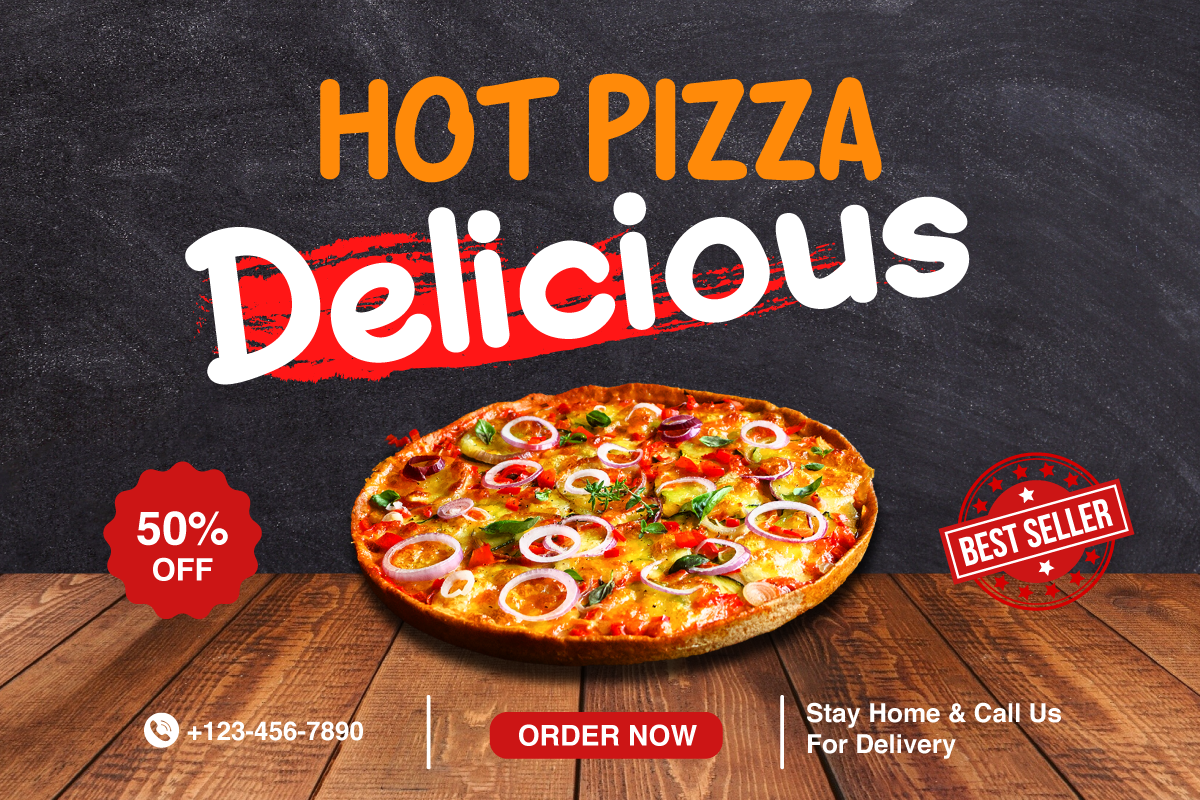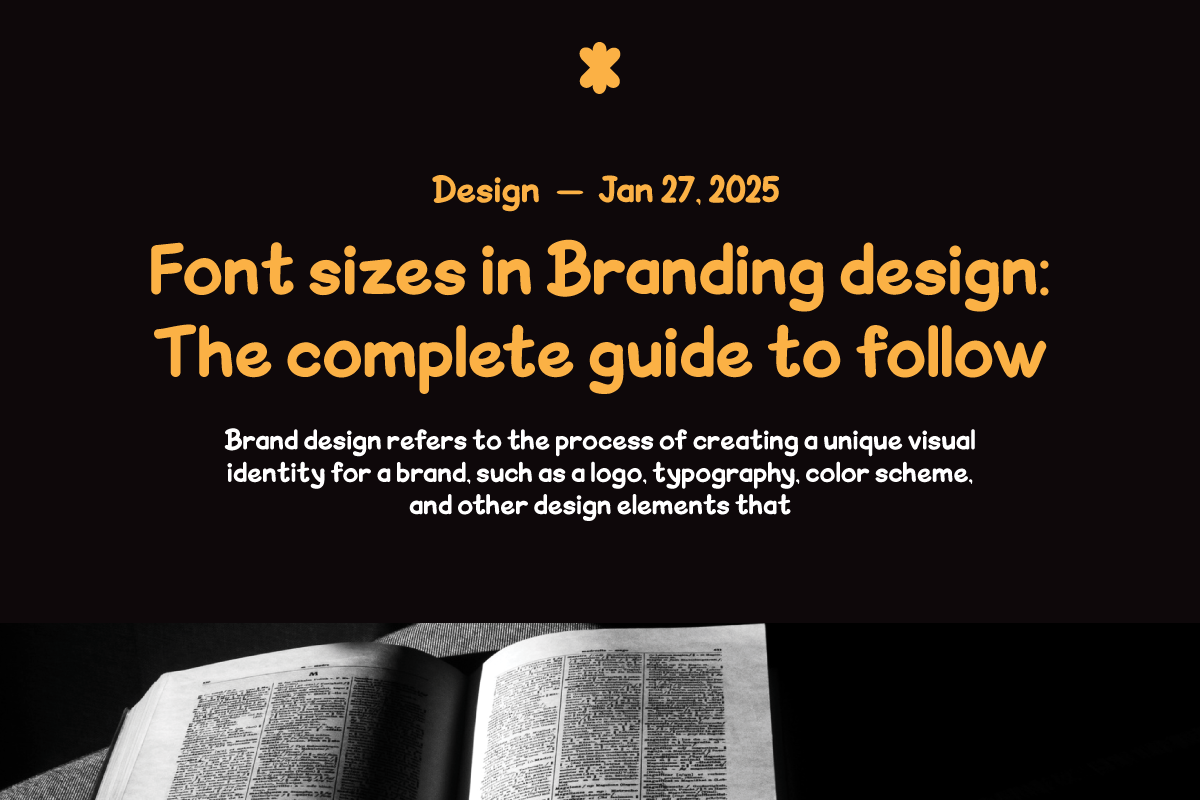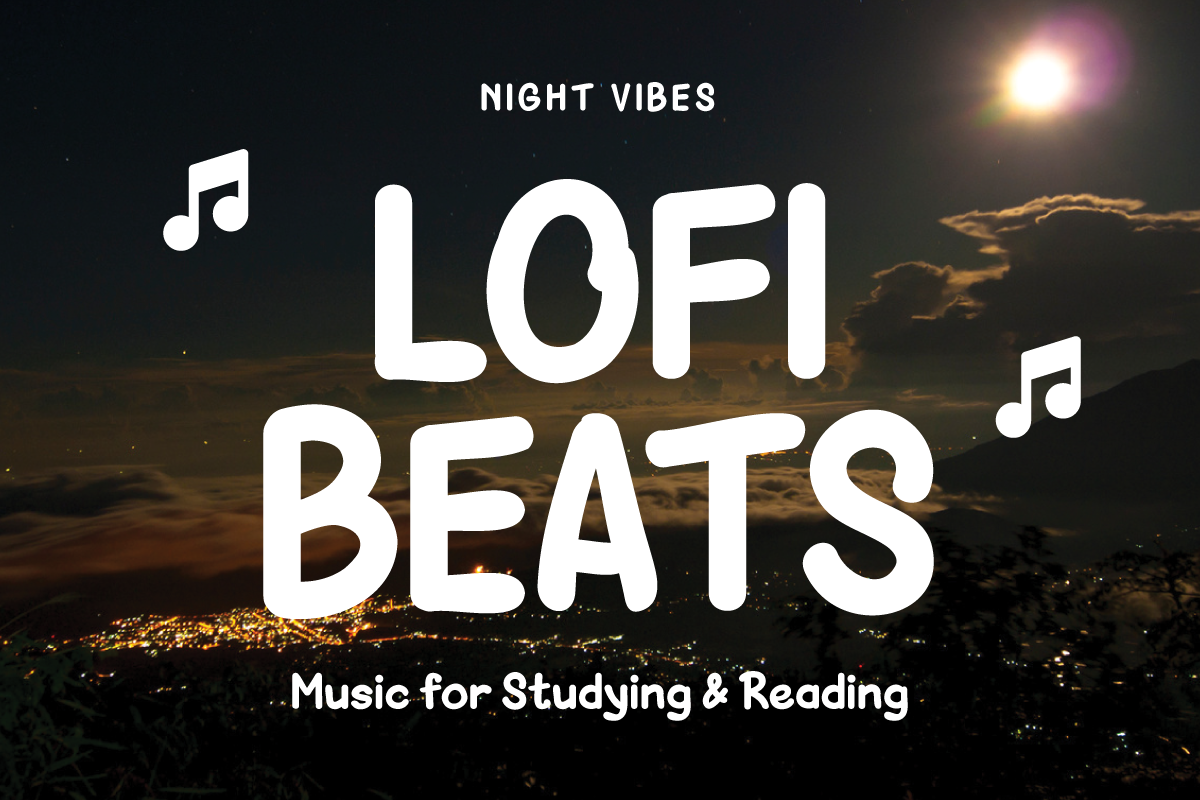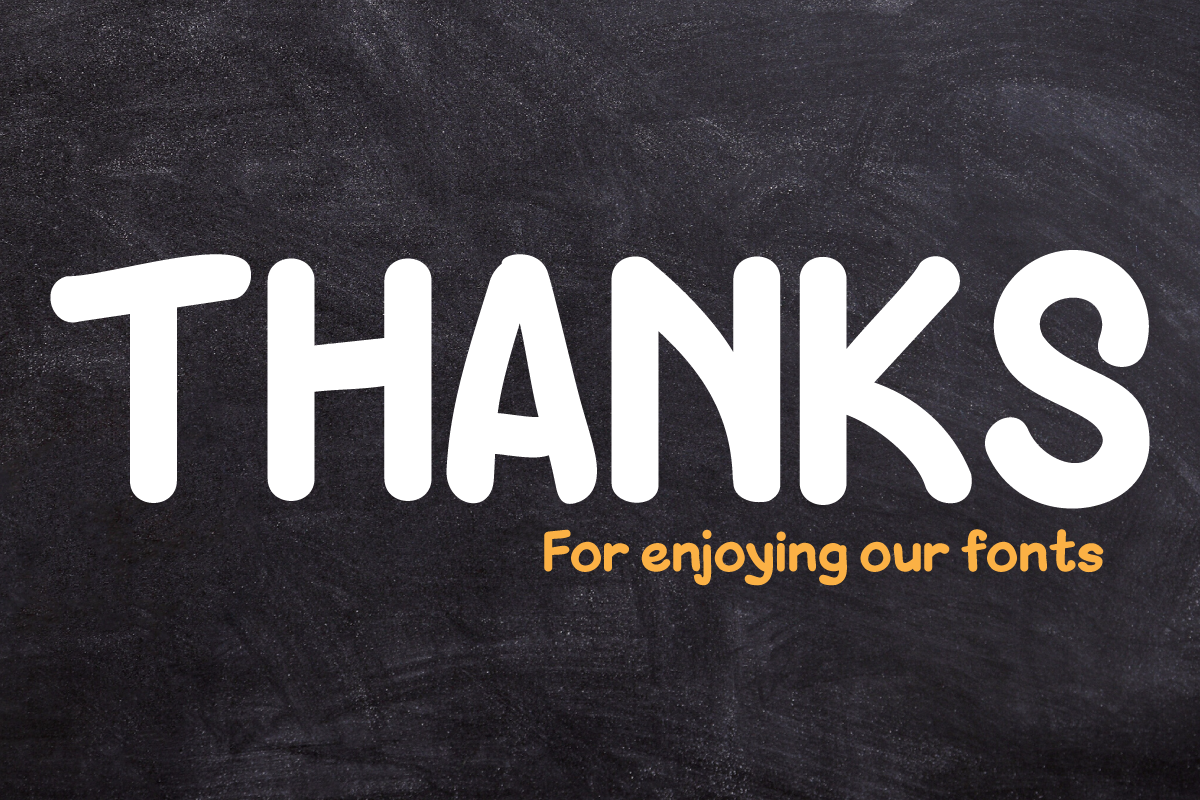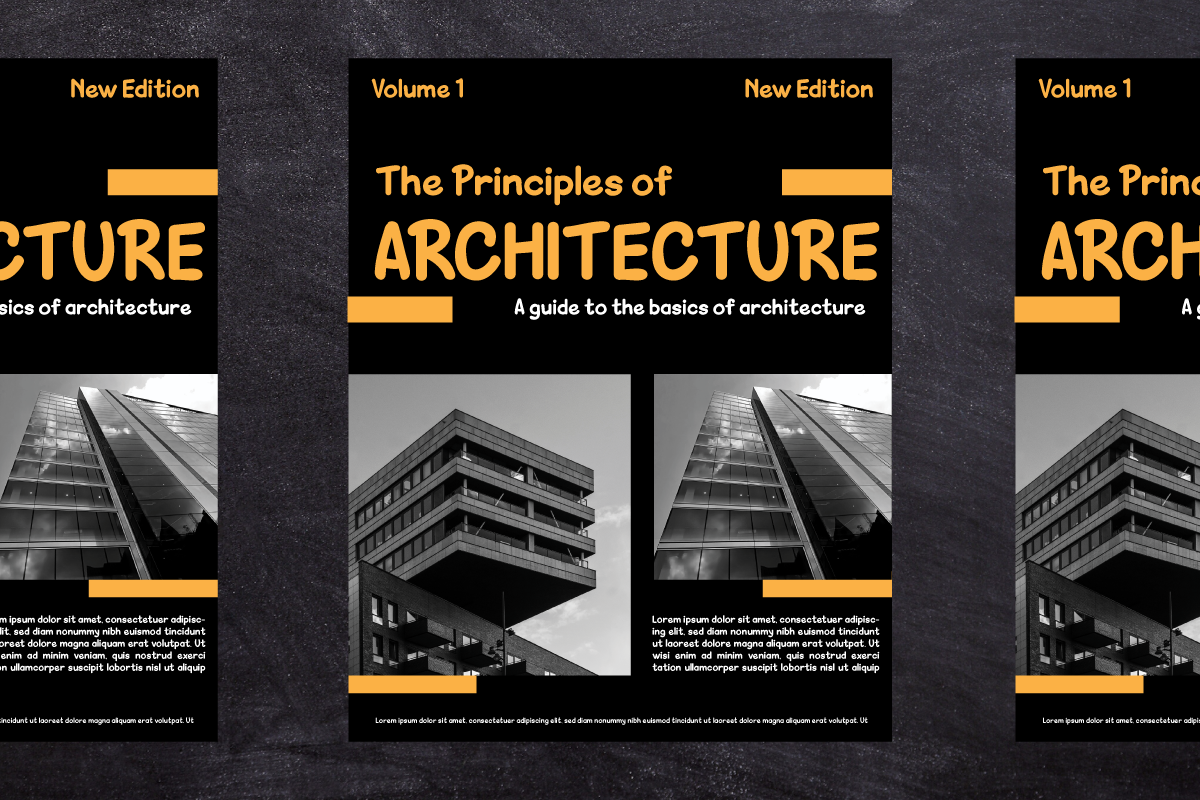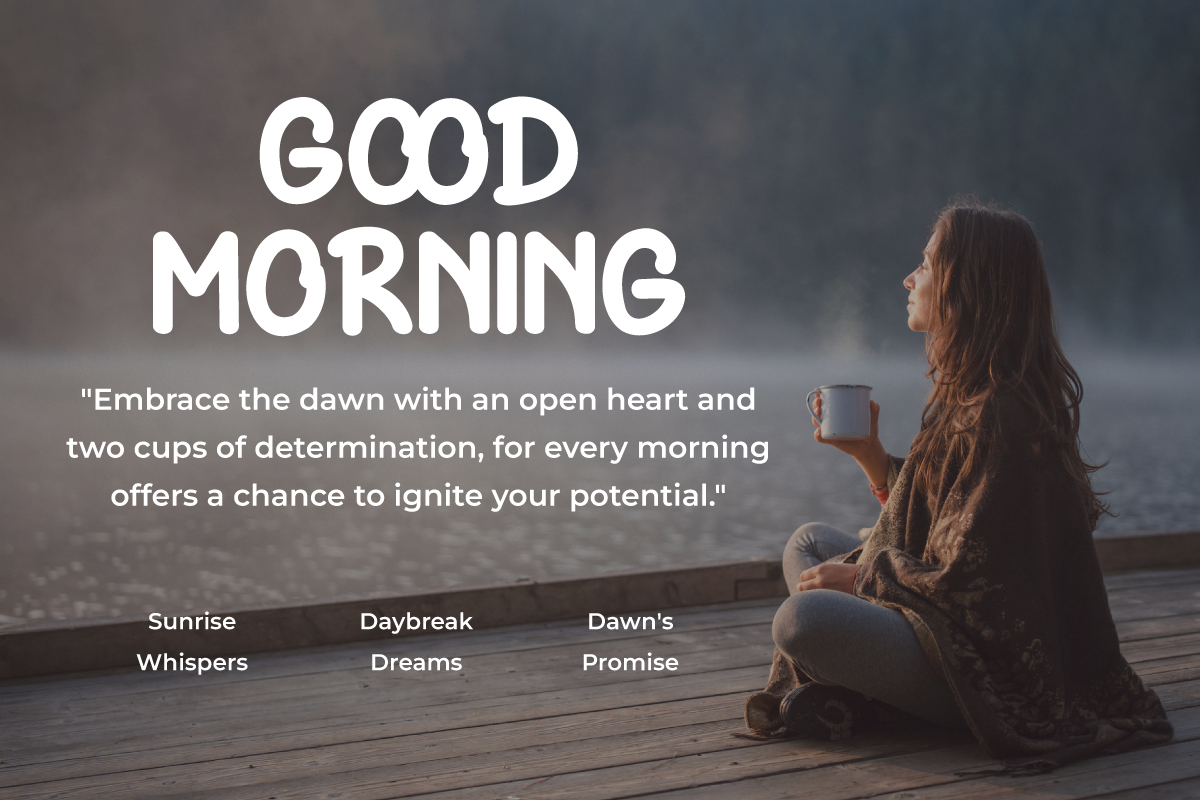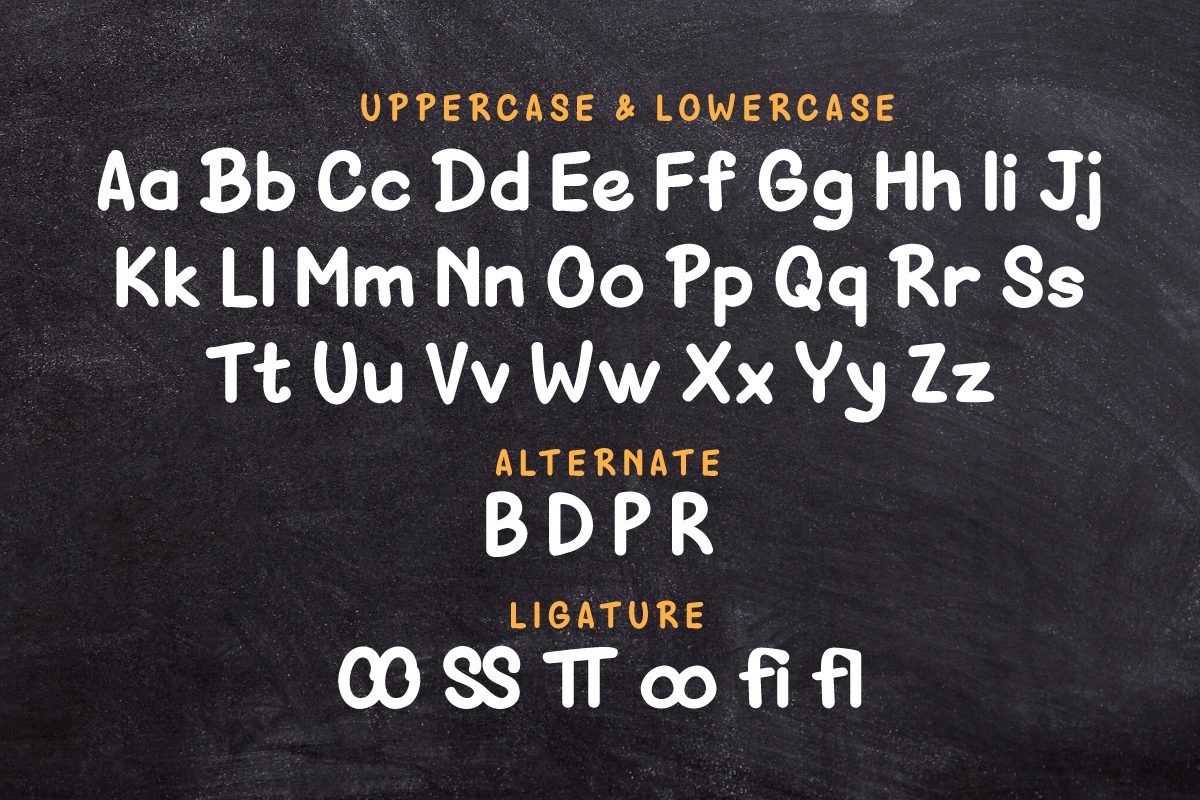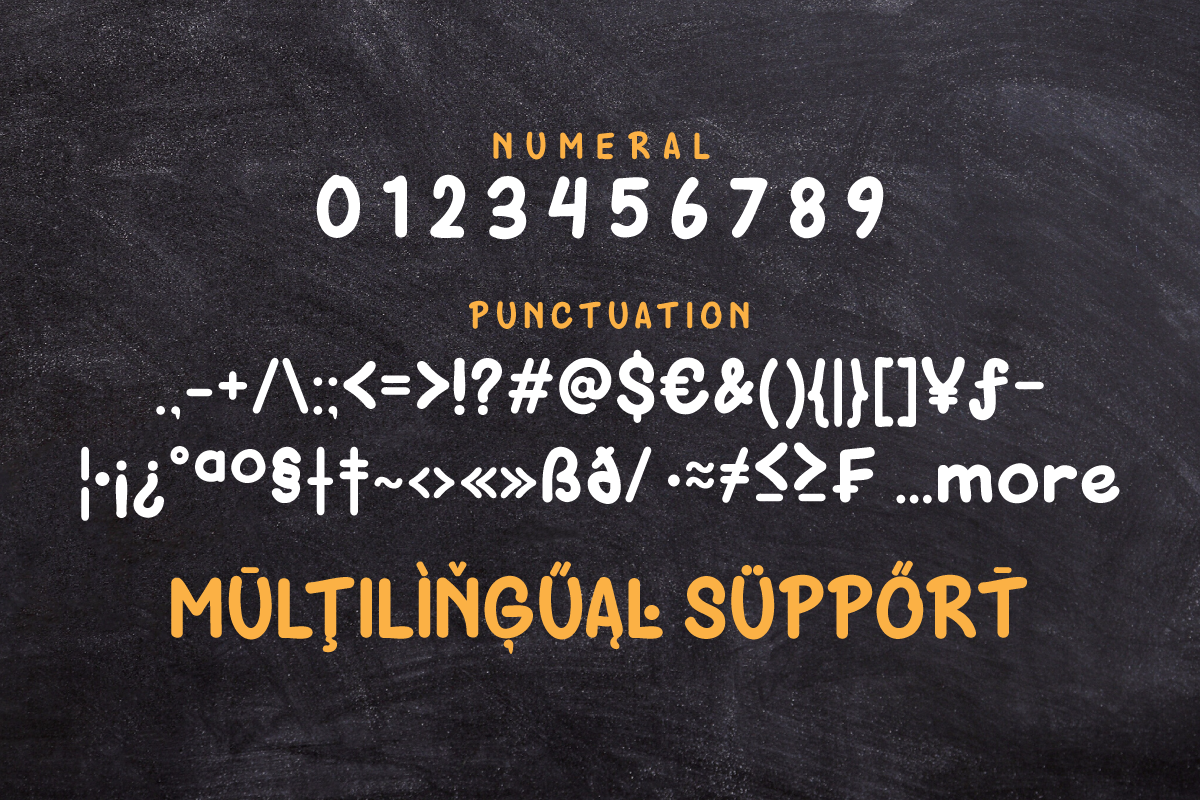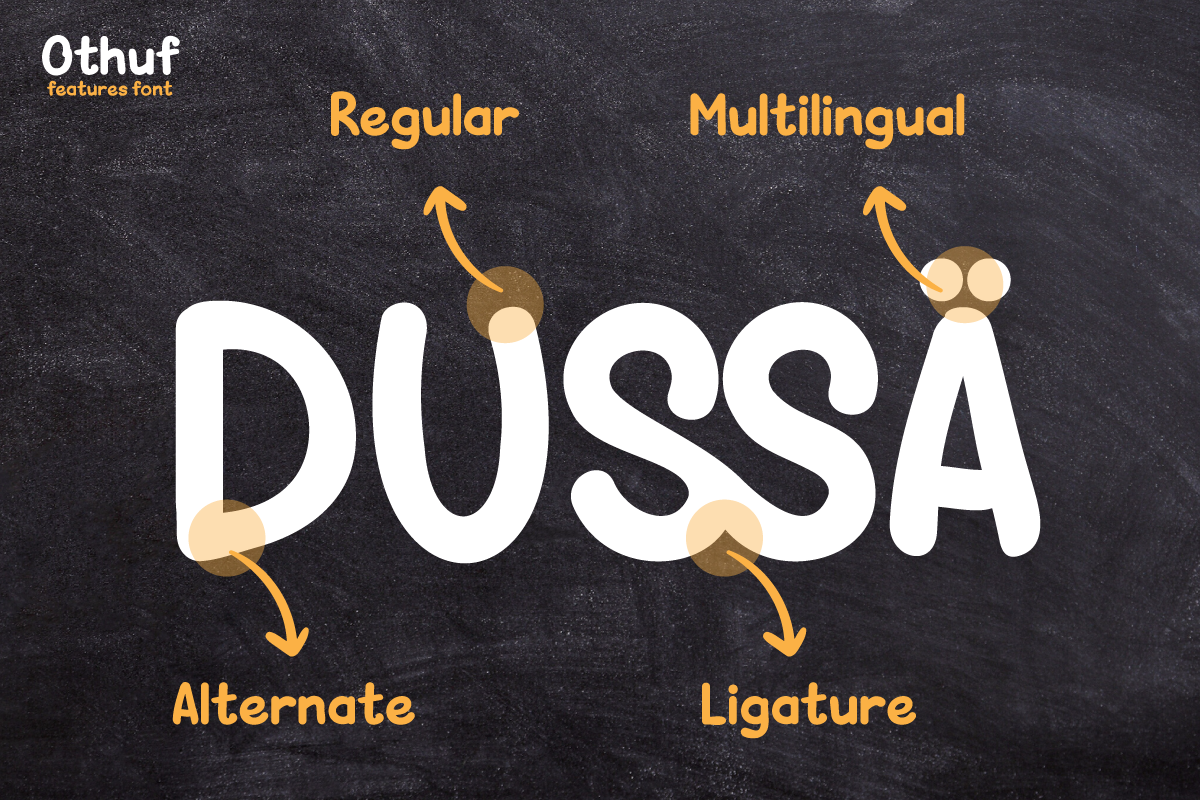
Othuf | Handwritten Display
Introducing "Othuf Font" - Where Handwriting Meets Elegance.
Othuf Font is the epitome of handwritten elegance. With its captivating handwriting theme, this font is your key to adding a touch of sophistication and authenticity to your creative projects. Whether you're designing invitations, posters, or branding materials, Othuf Font effortlessly grabs attention and infuses your designs with the charm of true handwriting.
Crafted with meticulous detail, Othuf Font exudes the timeless beauty and grace of handwritten script, forging an immediate connection with your audience.
Its versatility knows no bounds, making it a perfect fit for various applications, from wedding stationery to logo design.
Othuf Font enhances readability and style with its graceful strokes and flowing lines, providing a natural and appealing look to your text. It also offers support for multiple languages, ensuring that it resonates with a global audience.
Elevate your creative projects with the classic elegance of Othuf Font. Explore this exceptional typeface today and let your designs exude the beauty of authentic handwriting.
- Alternate, Ligature
- Fonts include Multilingual support